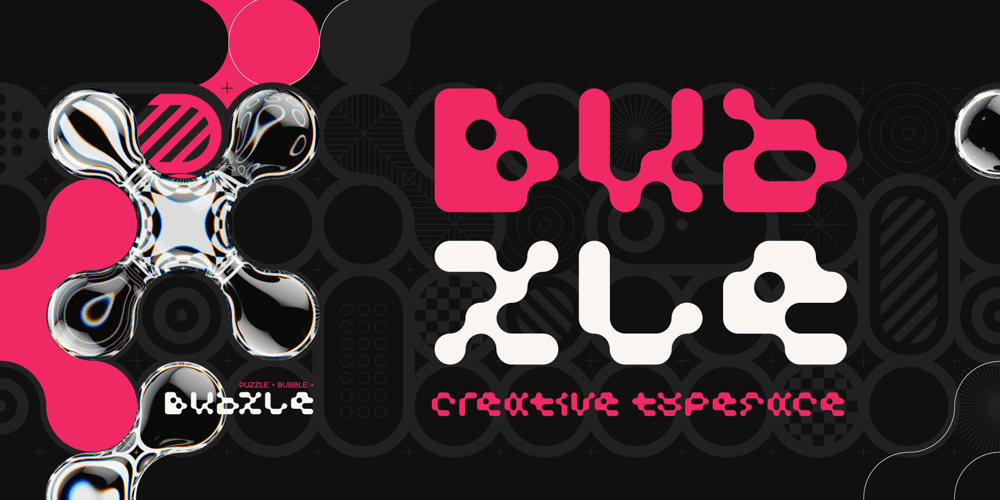
Bubzle Font Family was designed by Gleb Guralnyk and published by Gleb Guralnyk. Bubzle contains 1 styles and family package options. Hello! Presenting an abstract font – Bubzle. The design theme is inspired by the shape of smooth bubbles and the shape of puzzle pieces. It’s geometric style with rounded elements suits perfectly for modern and abstract designs. Bubzle font has multilingual support (check out a screenshot with available characters).Thank you and wish you a peaceful sky!